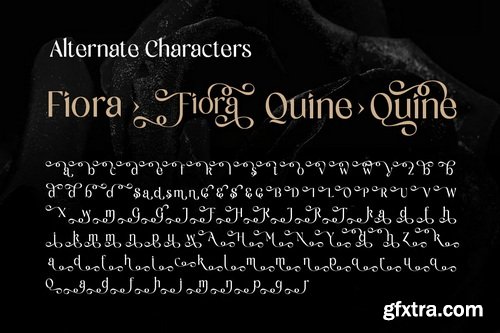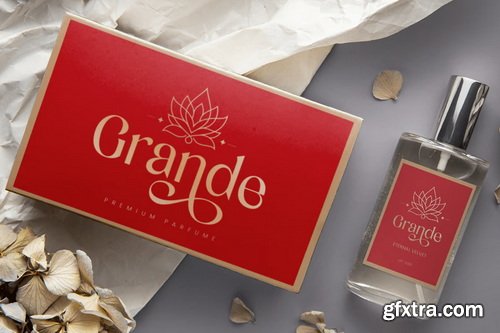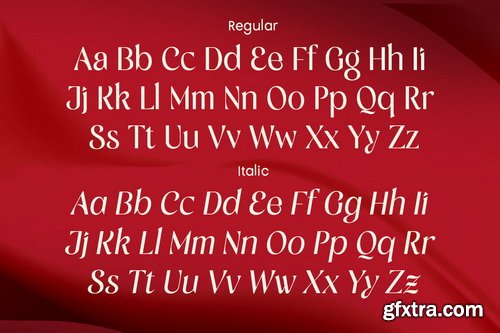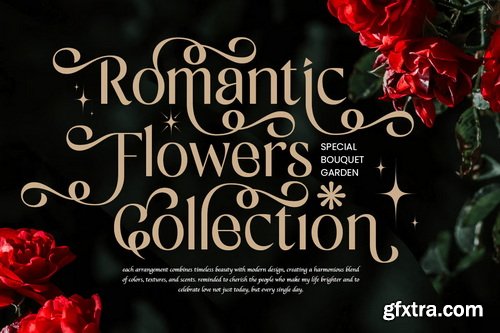
Senorita - Lovely Elegant Serif Font
Senorita is a lovely and elegant serif font that exudes grace, sophistication, and timeless beauty. With its delicate curves and refined letterforms, this typeface is perfect for luxury branding, wedding invitations, fashion editorials, beauty products, and high-end packaging.